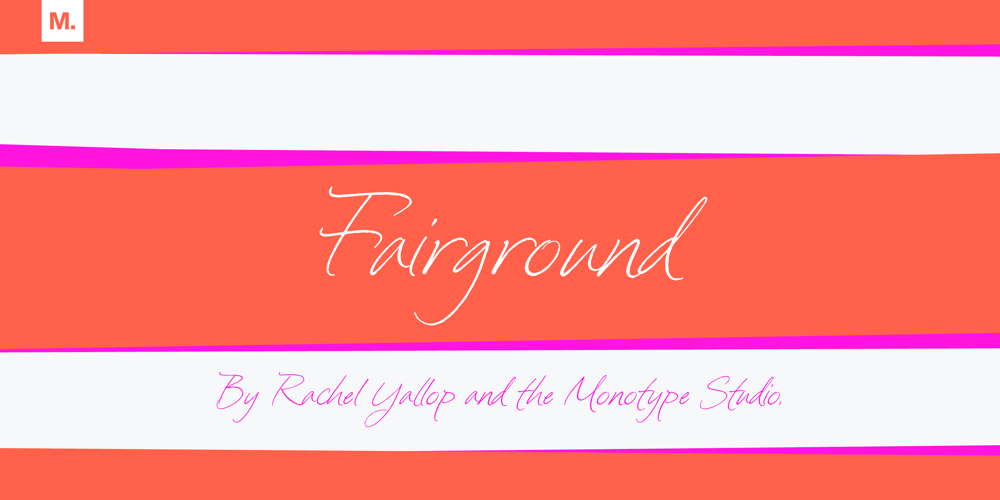
Fairground
Fairground font
Fairground Font Family was designed by Rachel Yallop and published by Monotype. Fairground contains 1 styles and family package options. Fairground was created by calligrapher Rachel Yallop using a vintage nib and ink. This gives it a light flourishing feel, combining the formal penmanship of calligraphy with something a little more informal at the same time. It’s a delicate font with a full range of upper and lowercase alternate characters. Oh, and it has ligatures too!